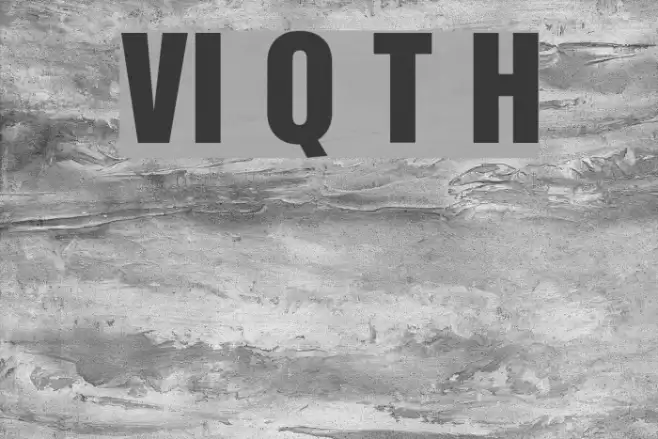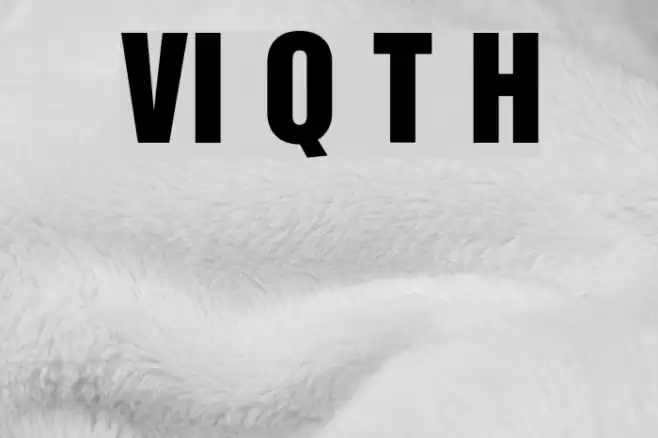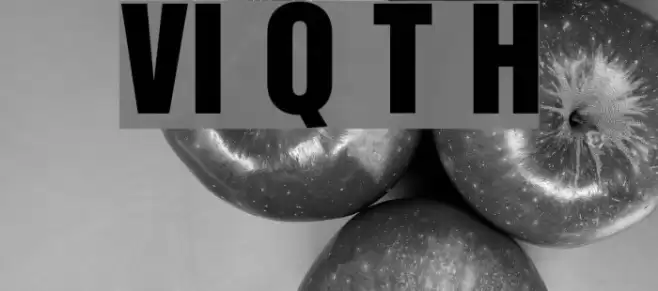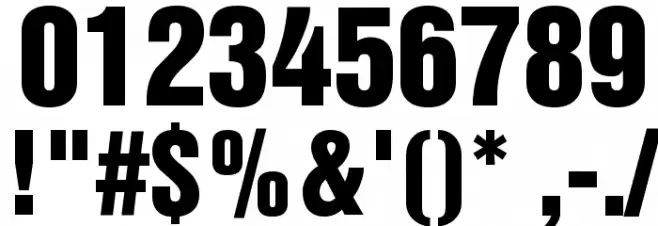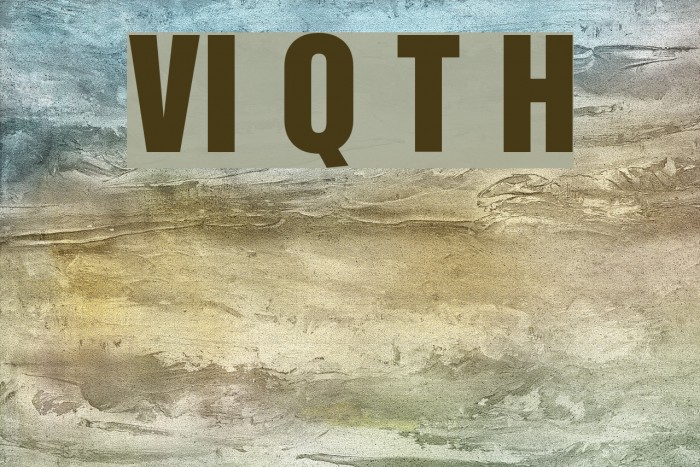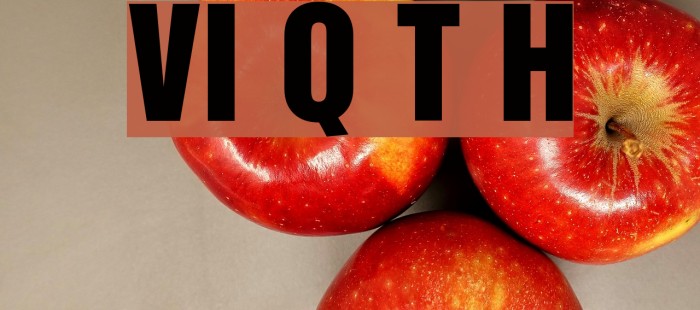
VI Quan Tu Hoa Font
VI Quan Tu Hoa Description
This font is a bold, sans-serif typeface characterized by its strong, impactful presence. The letters are uniformly thick, providing a sense of stability and confidence. The uppercase letters are prominent and assertive, making them ideal for attention-grabbing headlines. The numbers are equally bold, ensuring they stand out in any context. Special characters are designed with the same boldness, maintaining consistency across the font. The overall design is modern and clean, suitable for a variety of applications where clarity and impact are essential.
A bold, modern sans-serif font with a strong, impactful presence from Uncategorized fonts.